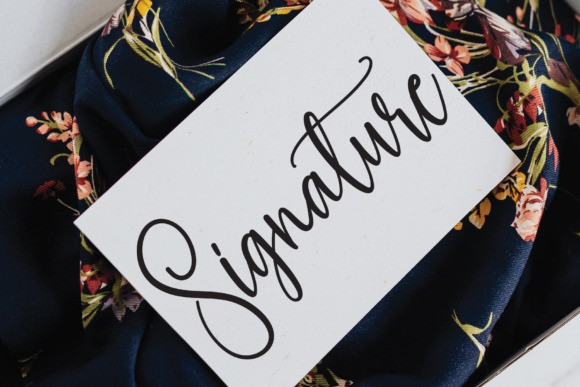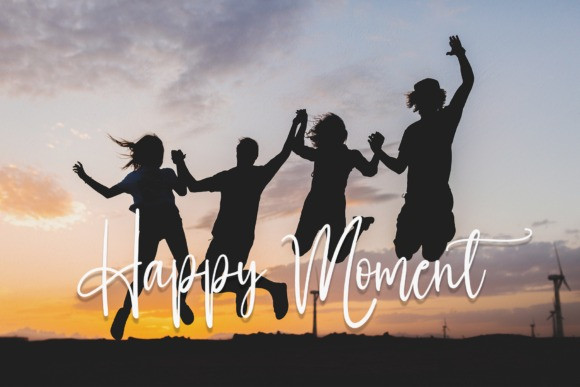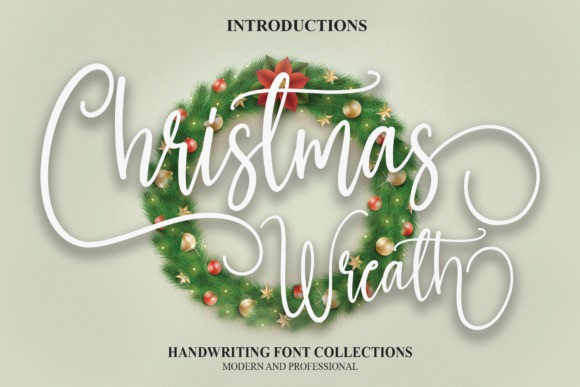
Christmas Wreath Font
Christmas wreath Font is an elegant and modern handwritten font. It is perfectly suitable for wall displays, wedding invitations, social media post logos, advertisements, product packaging, product designs, labels, photography, watermarks, invitations, stationery, and any project that requires stunning typography.